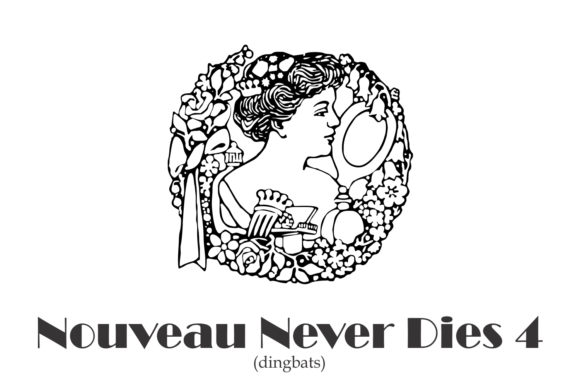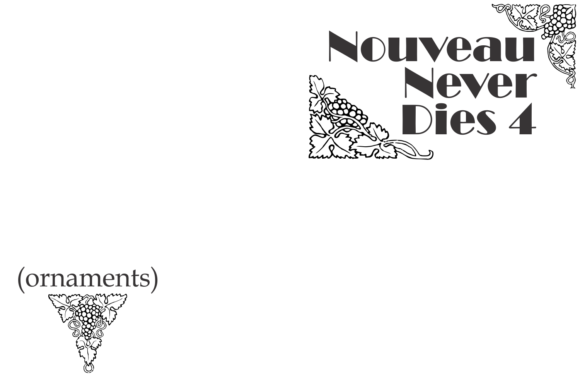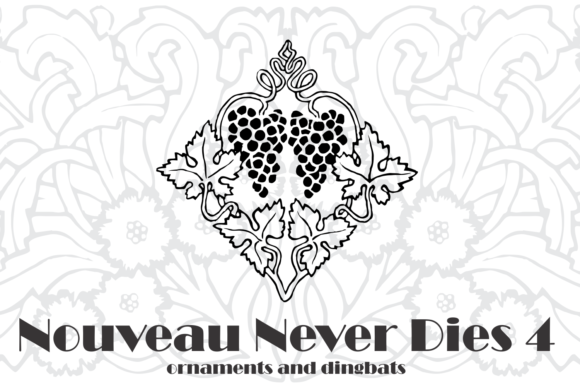
Nouveau Never Dies Font
About Nouveau Never Dies Font
Of course! Let’s go into more detail. As a designer, it’s important to have access to a variety of design elements that can be used to create a beautiful and unique project. The Nouveau Never Dies dingbat font is a great example of a versatile and elegant set of designs that can be used in a wide range of projects. With its Art Nouveau motifs, this set of dingbats brings a touch of beauty and elegance to any design.
Whether you’re designing a logo, a card, or any other visual element, the Art Nouveau motifs in the Nouveau Never Dies dingbat font are sure to catch the eye of your audience and instantly convey a sense of sophistication and tradition. The Nouveau Never Dies dingbat font is an incredibly versatile set of designs, with a wide range of motifs and elements. From floral and nature motifs to geometric shapes and textures, this set of dingbats has everything you need to create a stunning and unique design.
One of the best ways to use the Nouveau Never Dies dingbat font is to create a design with a touch of elegance and tradition. Whether you’re designing a logo for a fine dining establishment, a gourmet restaurant, or any other project, these dingbats are the perfect way to add a touch of Art Nouveau flair to your design. The Nouveau Never Dies dingbat font is an incredible asset to any designer’s font library and has the potential to elevate any project with a touch of beauty and elegance.
The Nouveau Never Dies dingbat font is an ideal choice for any designer looking for a versatile and elegant set of designs that can be used in a wide range of projects. Whether you’re designing a logo, a card, a sign, or any other visual element, this set of dingbats has everything you need to create a stunning and unforgettable design.
In addition, the Art Nouveau motifs in the Nouveau Never Dies dingbat font are designed to be elegant and beautiful, without being overbearing or overpowering. Whether you’re designing a logo or a card, these dingbats can be used to create a design that is both visually appealing and easy to read.
So if you’re looking for a versatile and elegant set of designs that can be used in a wide range of projects, The Nouveau Never Dies dingbat font is a great choice. With its Art Nouveau motifs and its incredible versatility, this set of dingbats has the potential to elevate any project with a touch of beauty and elegance.